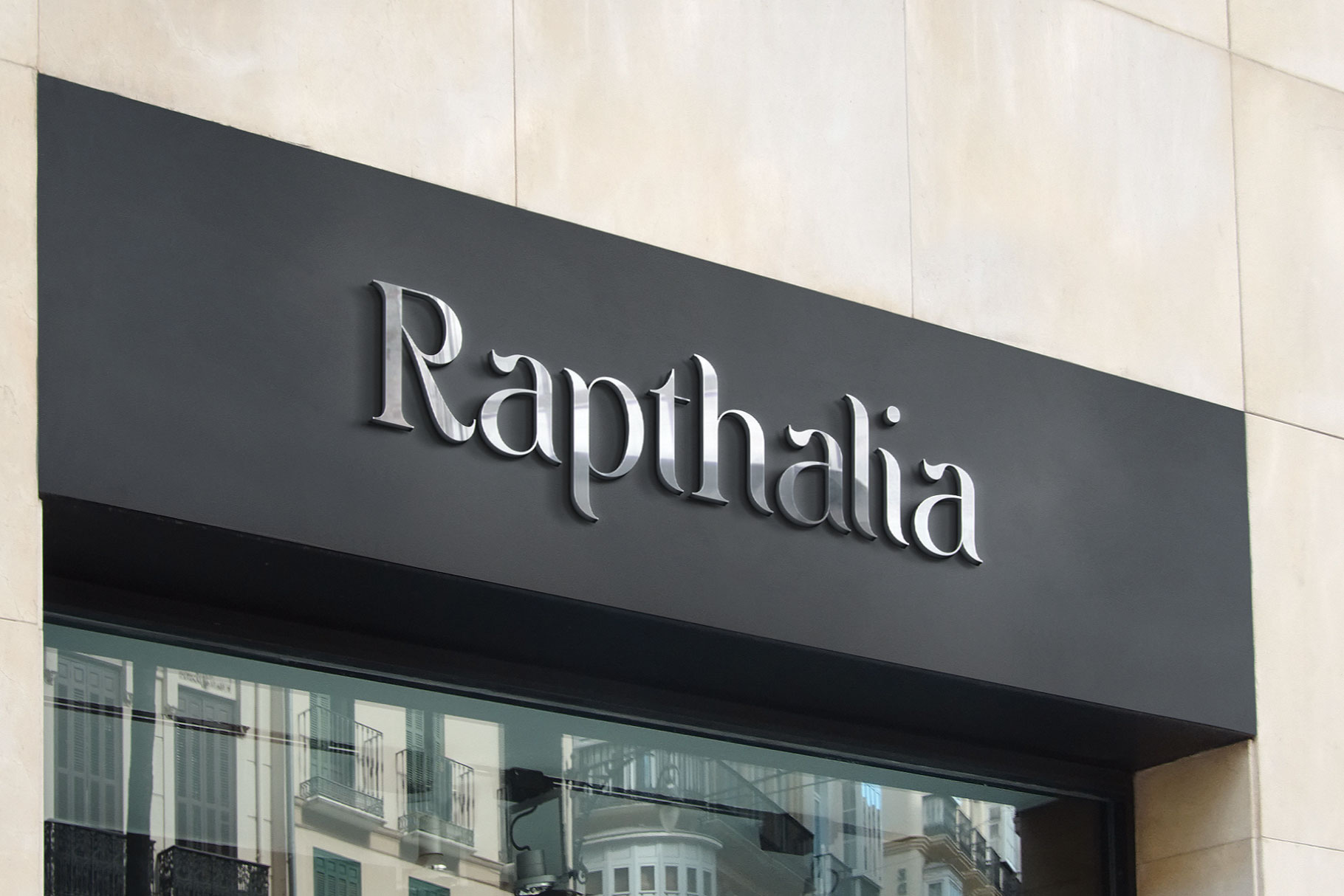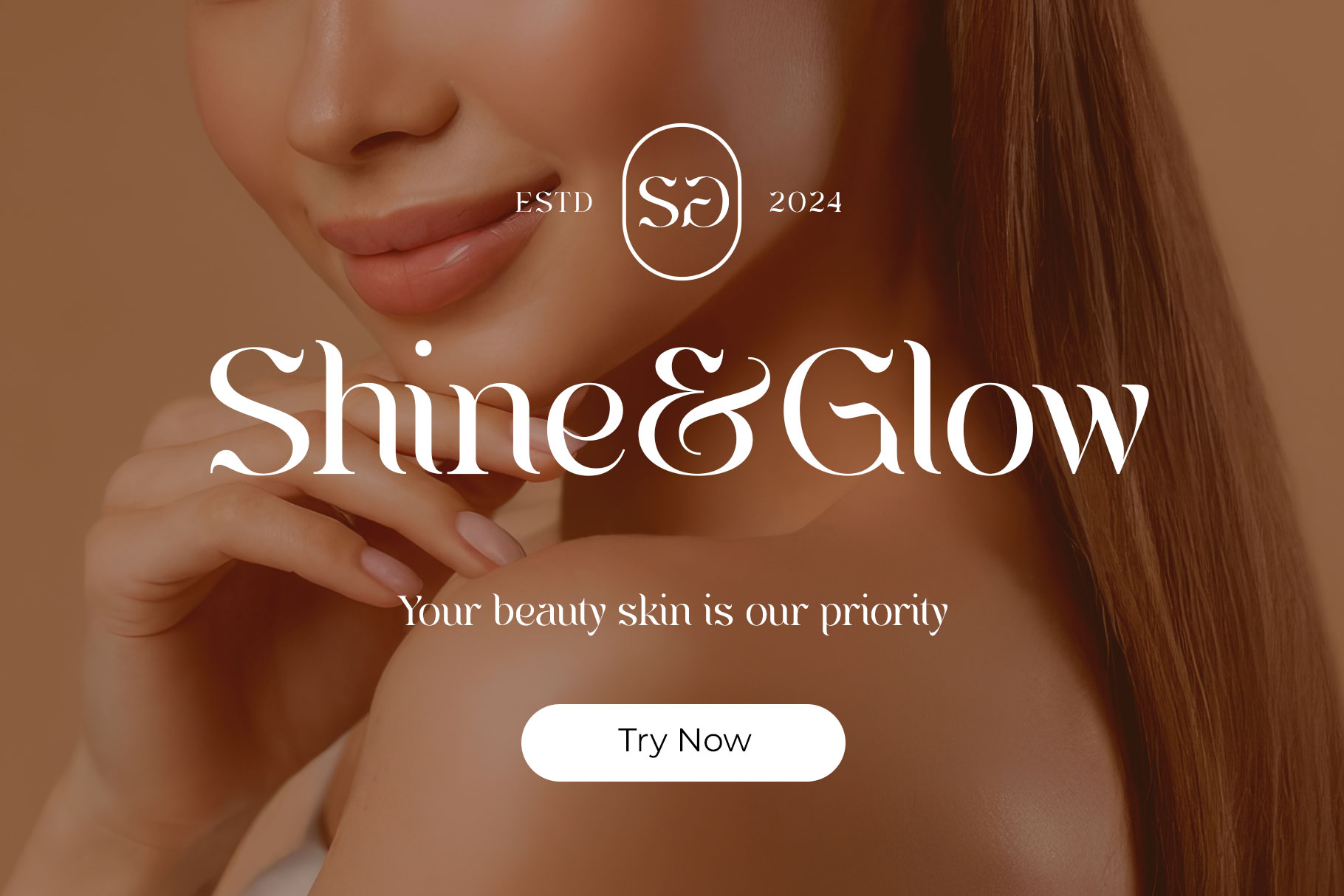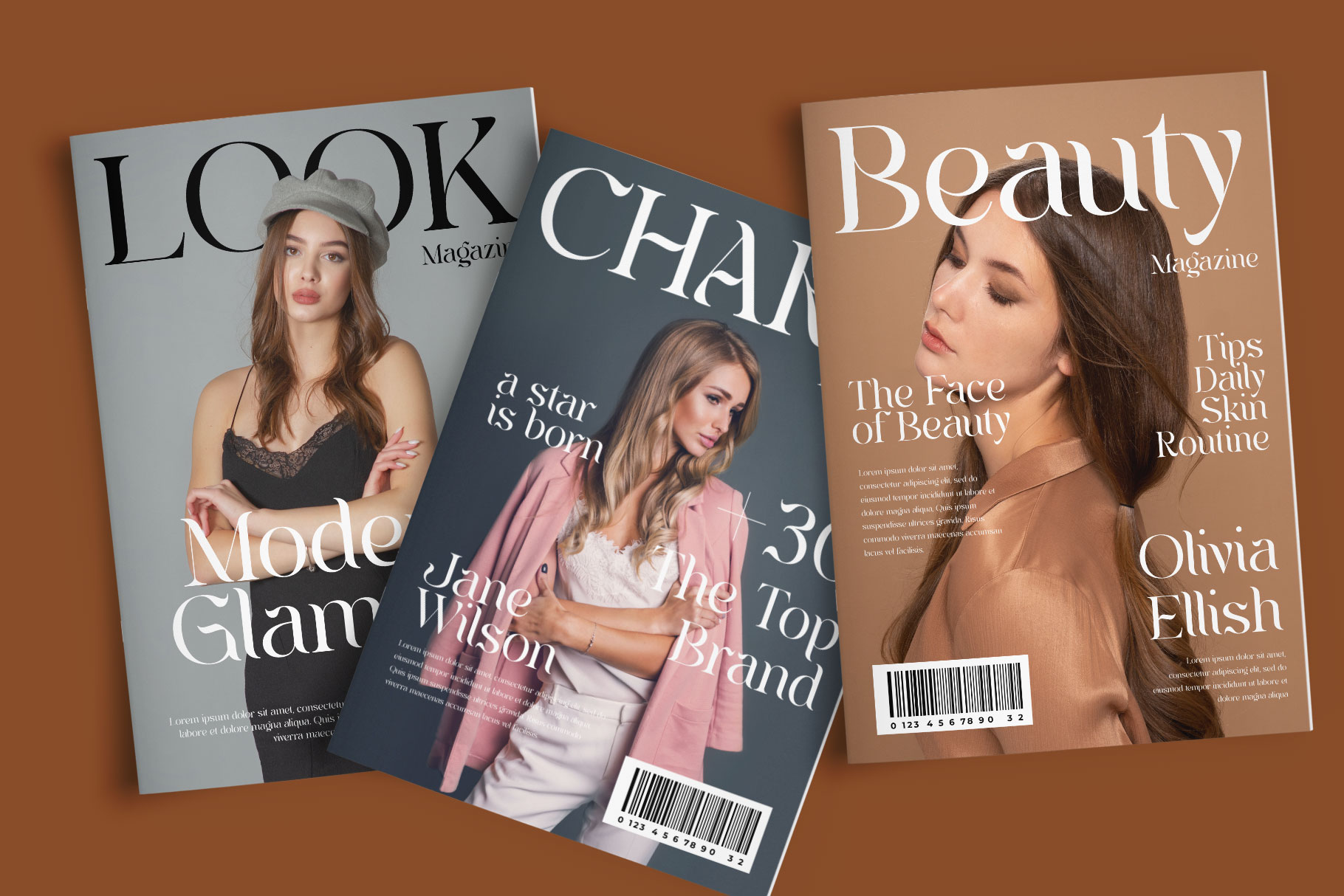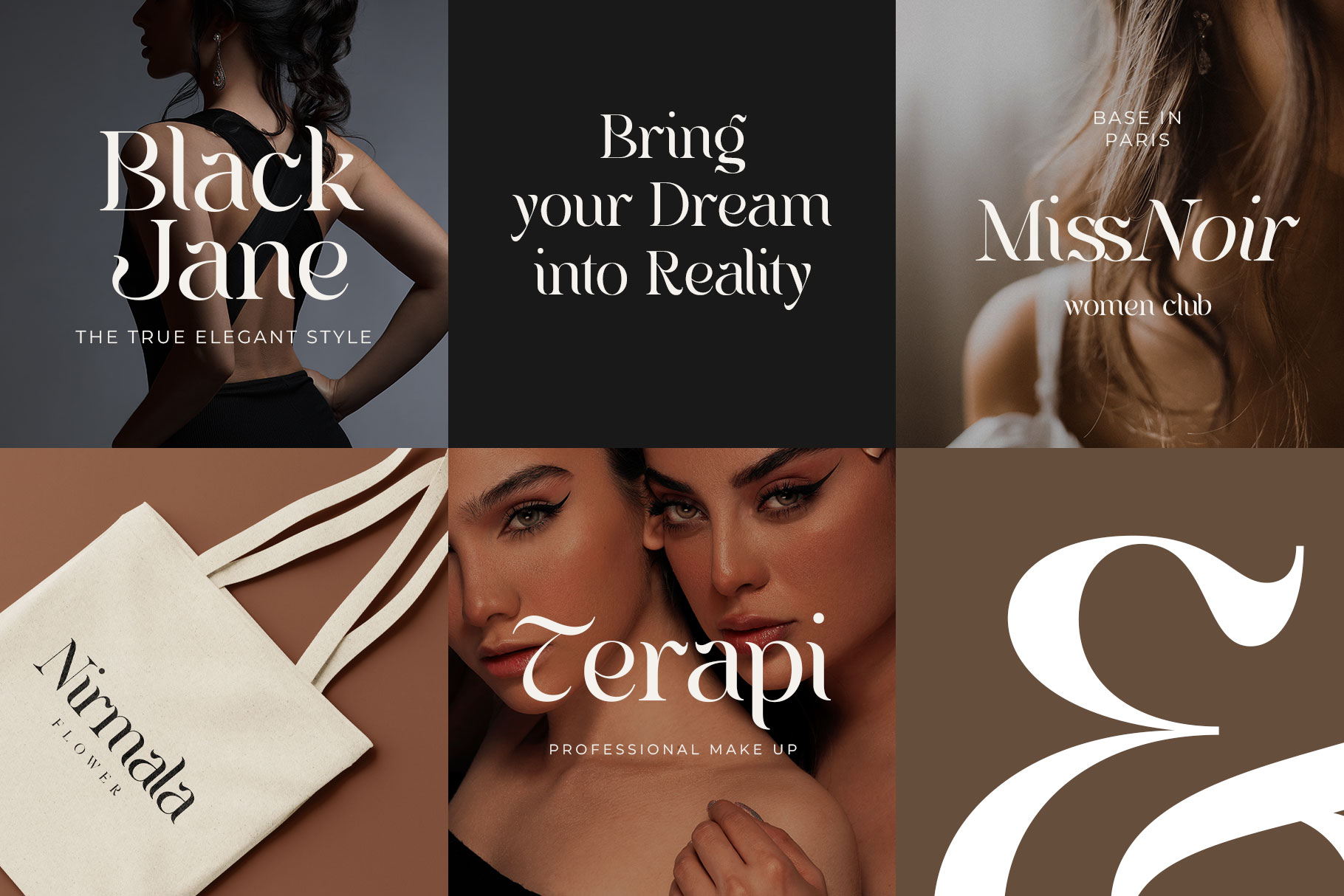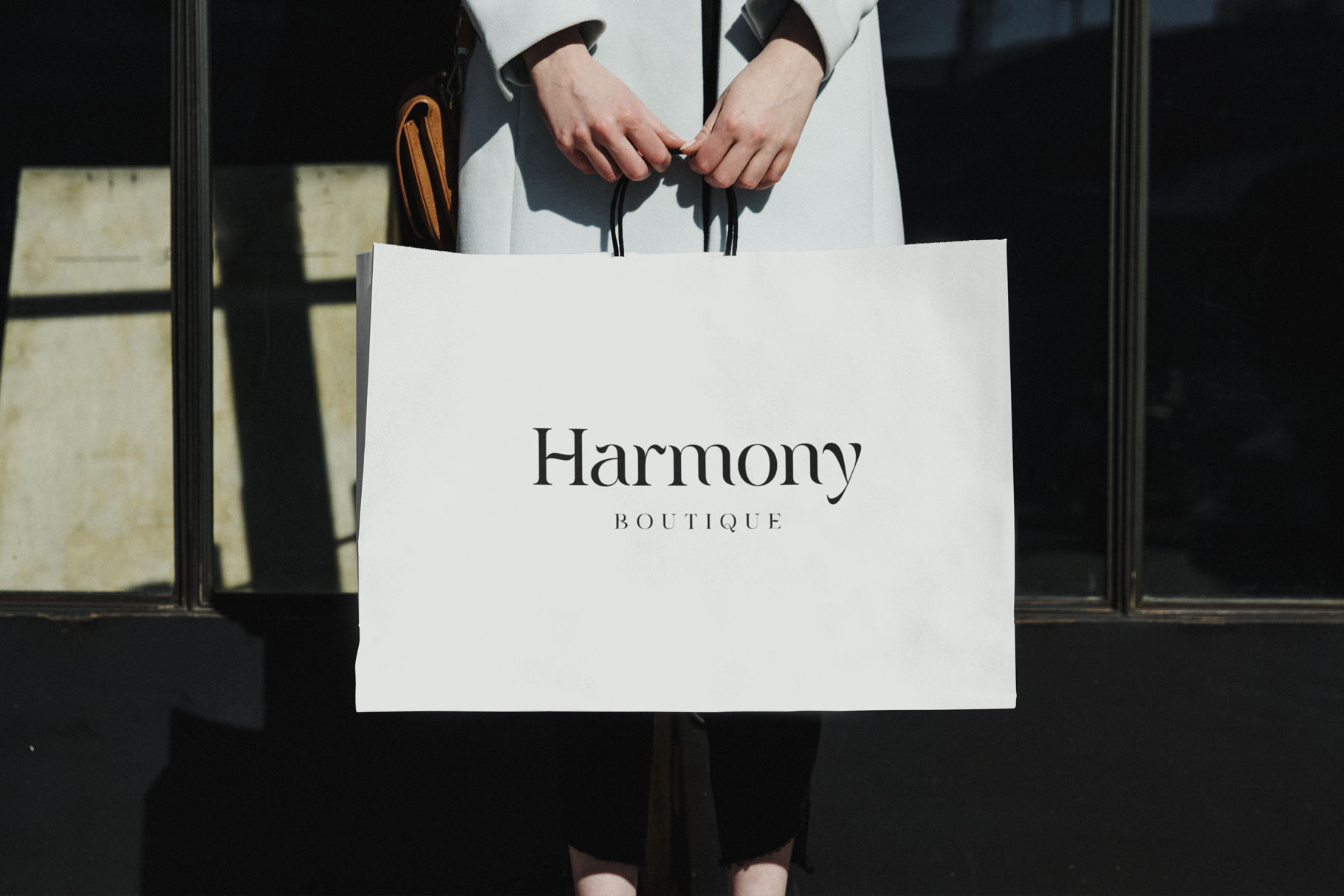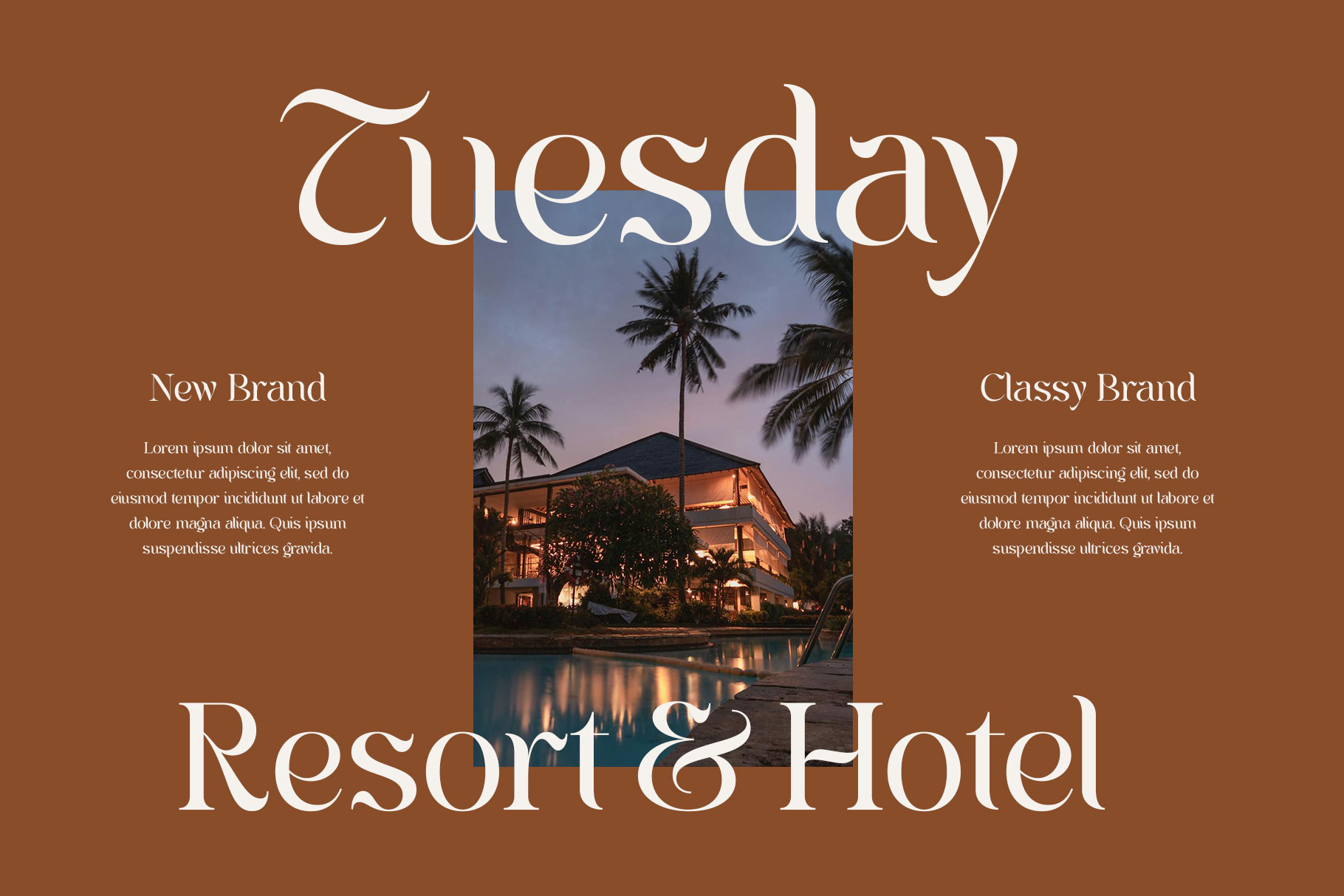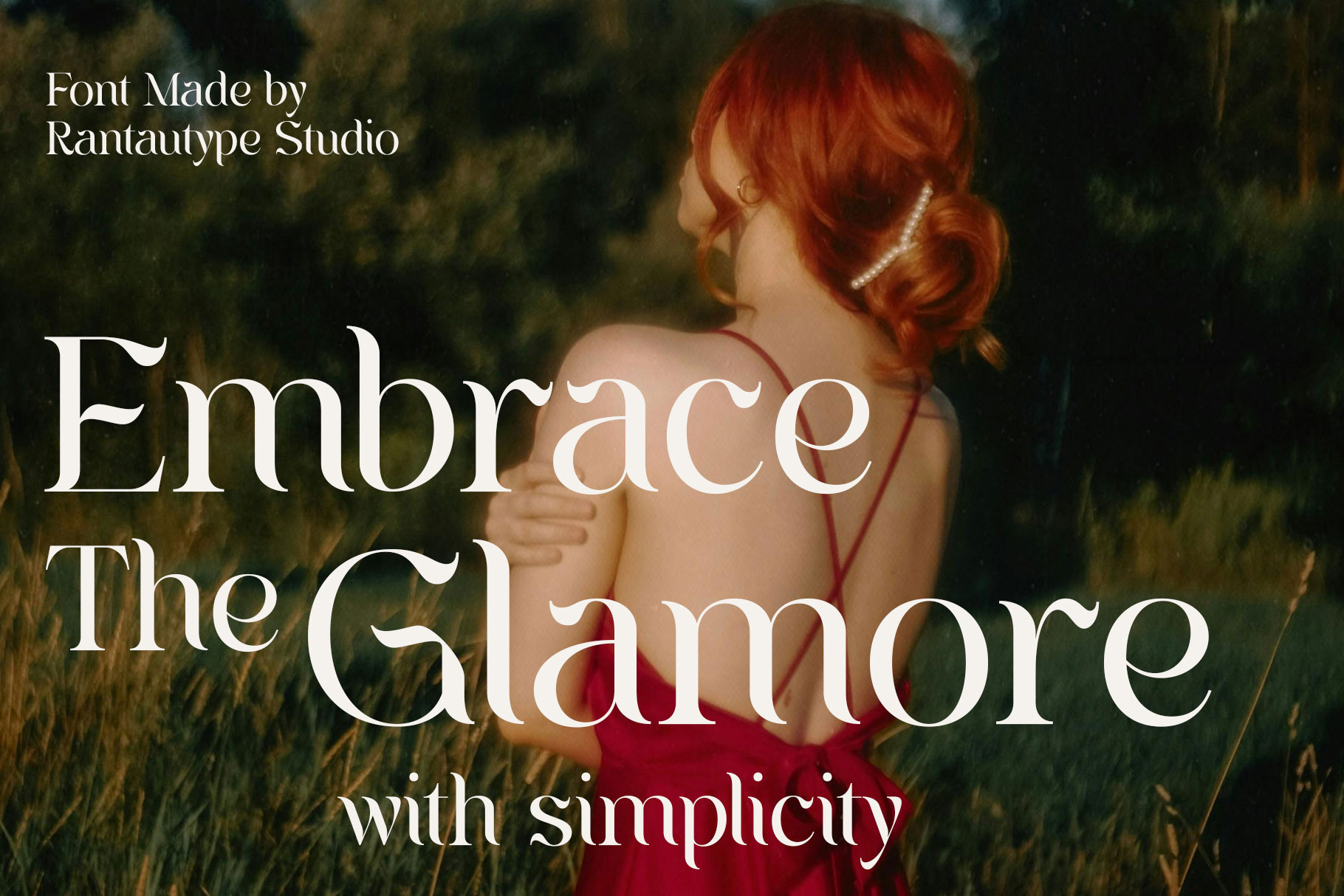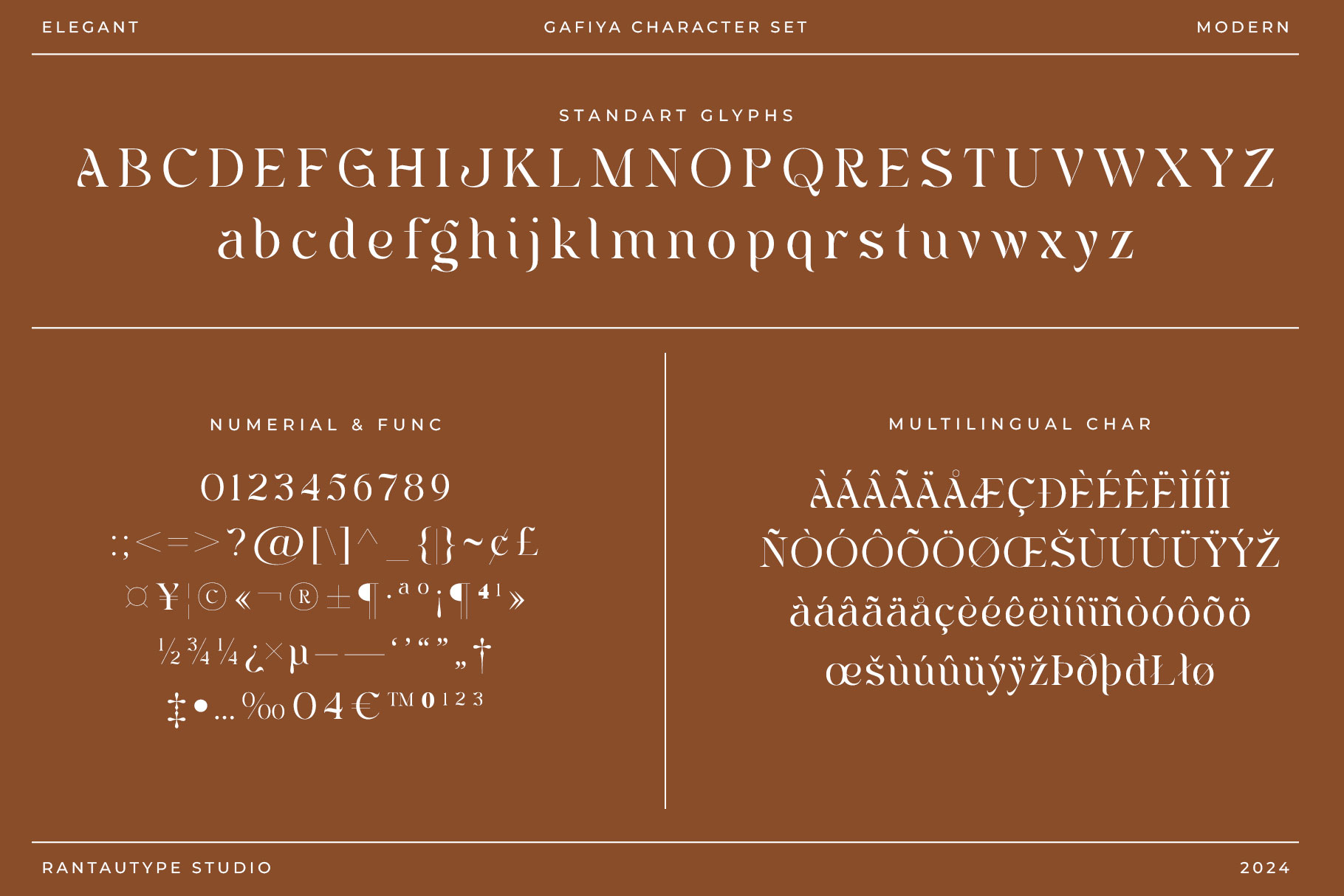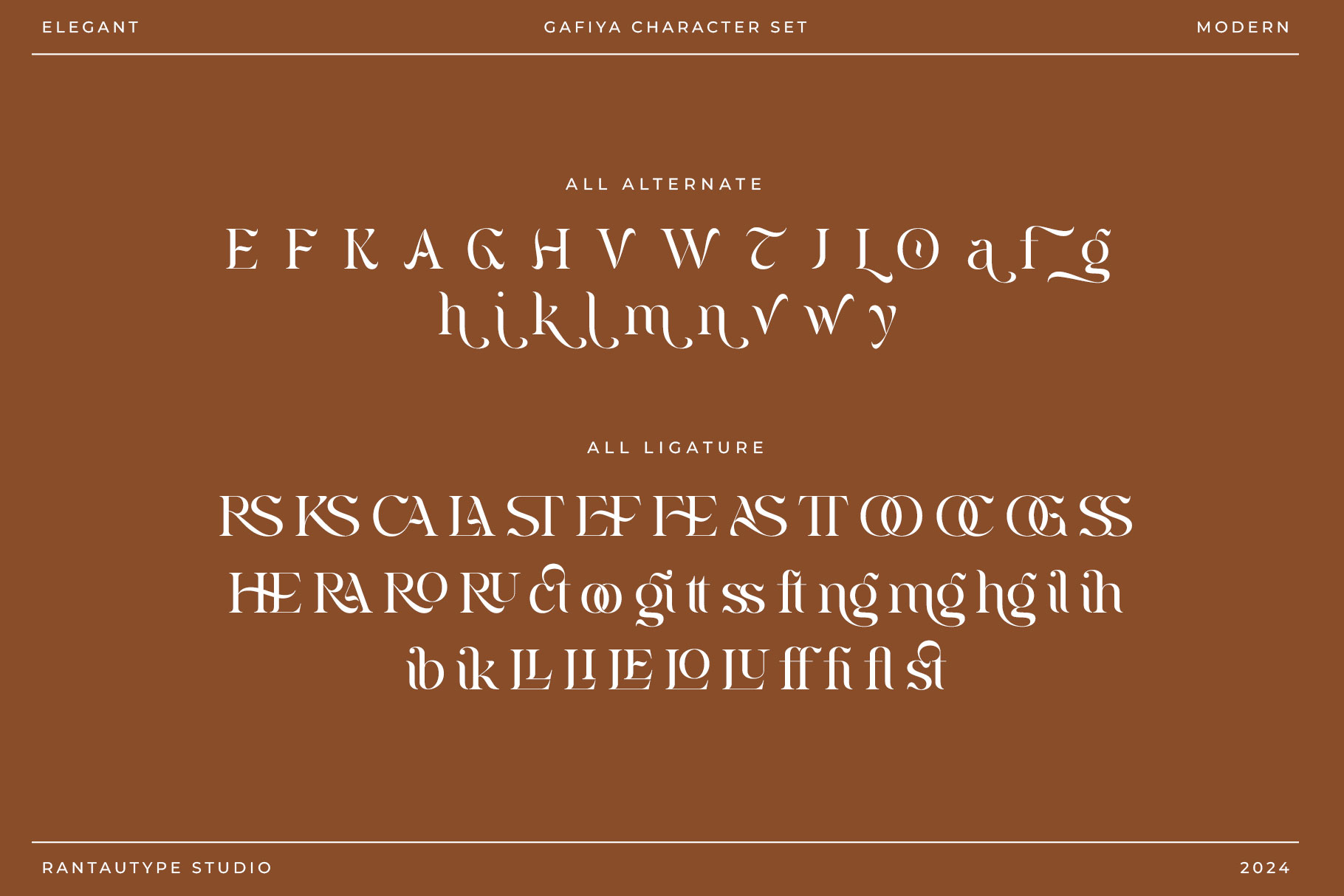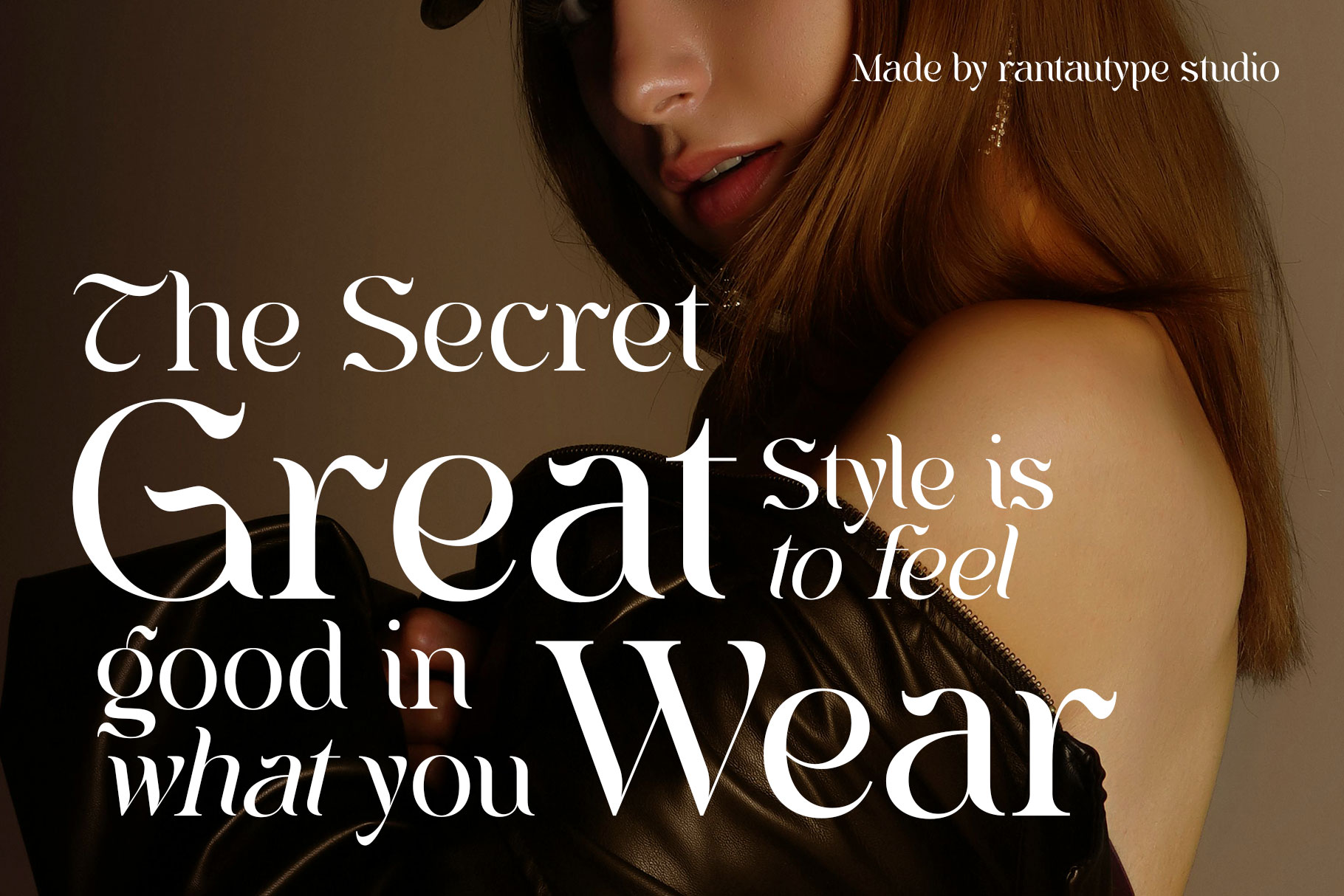
Gafiya Classy Serif Font
Gafiya is classy serif font with elegant look. Gafiya bring modern and clean shape make it freah for your brand or design project. Gafiya come with alternate and ligature, you can mix and match to creat beautiful design project. We keep this font look modern, feminine, elegant, classy and fashionable.
Gafiya is a perfectly choice for any creative endeavor, creating elegant, modern, chic, lifestyle design such as logotype, title, cover, branding, invitations, wedding designs, display and magazine, social media posts, advertisements, printed quotes, product packaging, corporate brand, product designs, labels, photography, watermarks, special events and any other project with elegant touch.